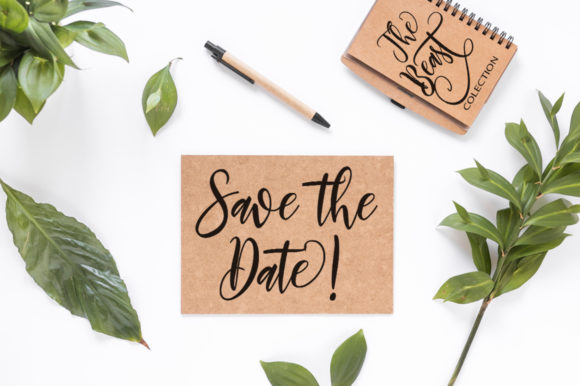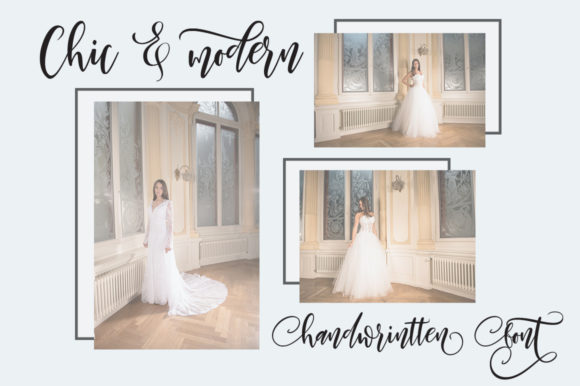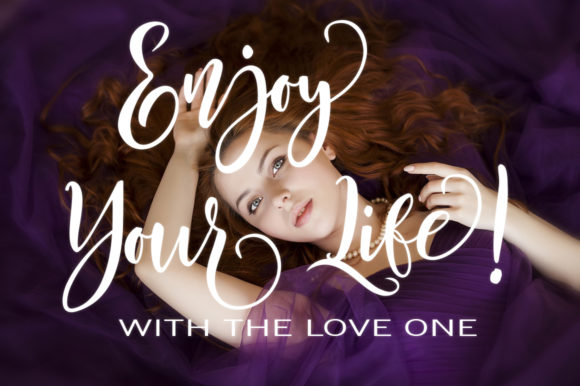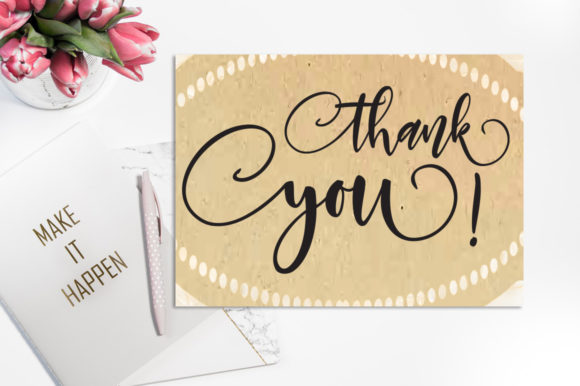
Joustin Font
About Joustin Font
The Joustin is a classy calligraphy font. It has an elegant style which is perfect for adding a luxurious look to your designs.